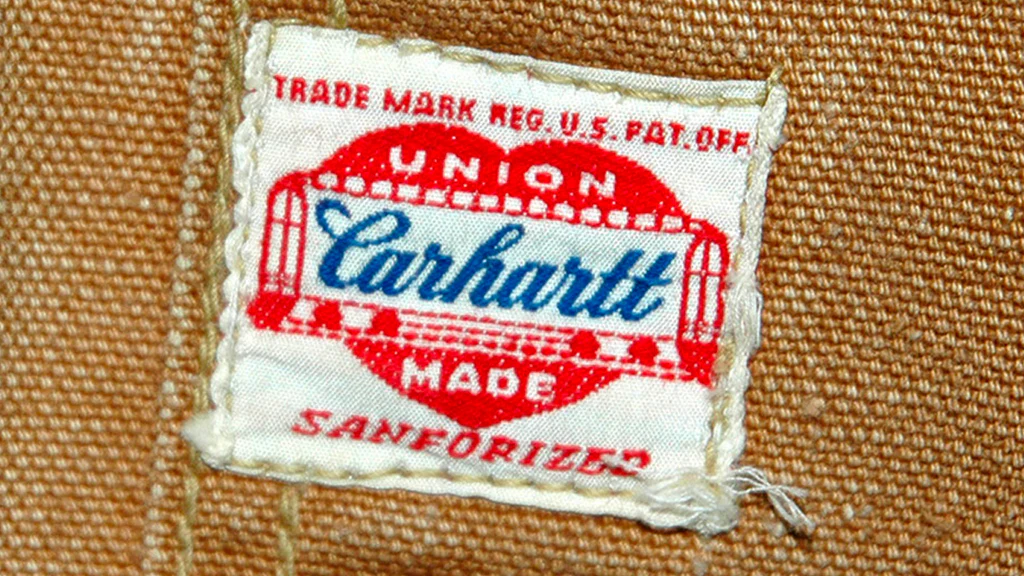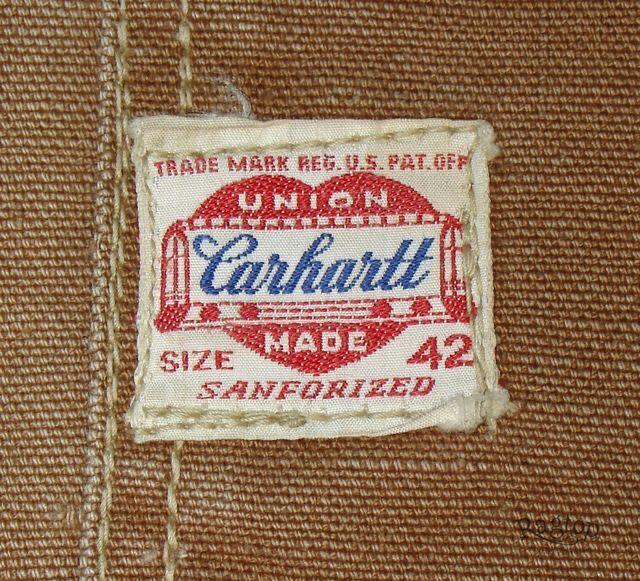
Looking for the americana script used on Carhartt's vintage logo
Sorry, Alphonse, but the blue type is lettering, not a typeface. Most logos of that era (1900–1950) were hand-drawn.
Many similar digital typefaces exist, but haven’t found one that hits all the marks (loop on the C and on the h, low crossbar on the t|s, fairly even stroke weight on the right side of the r|s.).
Vaguely similar: Matador, Gabor, Philly Sport Script, Grandyose, Froadmile, Workside Slant, The Rolling Star, LHF Chicago Script, Robu Bold